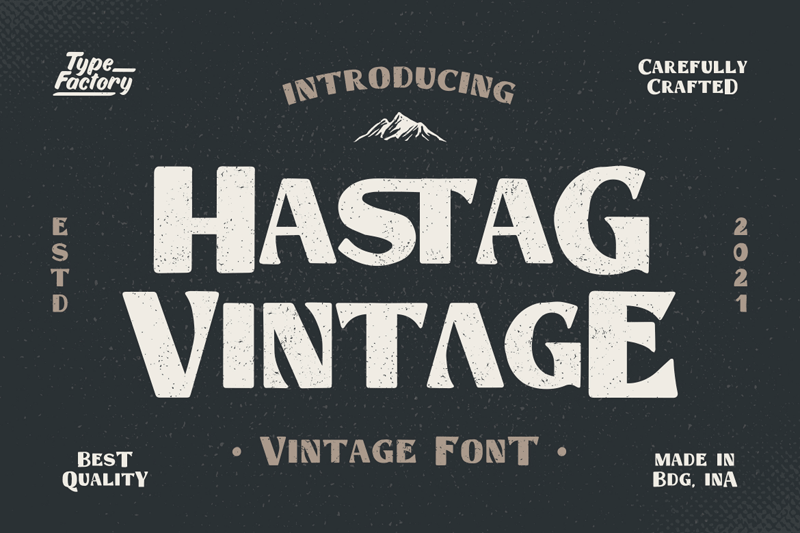
Hastag is a vintage display font that was made by hand and inspired by classic posters. Hastag comes with uppercase, small caps, numerals, symbols & punctuations, alternate, ligature and multilingual support. Perfect to use for Logotype, Letterhead, Poster, Apparel Design, Labels, and many more designs. Full Version Download Here : https://typefactory.co/product/hastag-vintage-display-font/ https://www.creativefabrica.com/product/hastag-vintage/ |